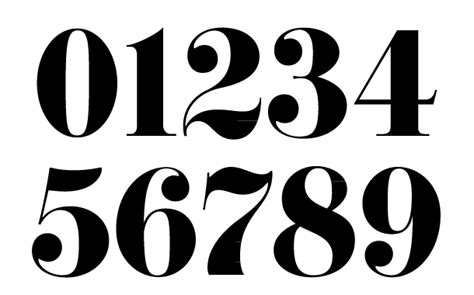
Cool Fonts For Numbers. Web the best number fonts 1. Number fonts is a style that is dedicated to just the number letters.
Web the best number fonts 1. Web best number fonts for awesome designs: Web best number fonts. Number fonts is a style that is dedicated to just the number letters. Web 50+ best number fonts for displaying numbers | design shack. This google font is all about simplicity and elegance. Crimson text rings of other classic fonts that we’re used.
Number fonts is a style that is dedicated to just the number letters. Web best number fonts. Web 50+ best number fonts for displaying numbers | design shack. Web the best number fonts 1. Number fonts is a style that is dedicated to just the number letters. Crimson text rings of other classic fonts that we’re used. Web best number fonts for awesome designs: This google font is all about simplicity and elegance.